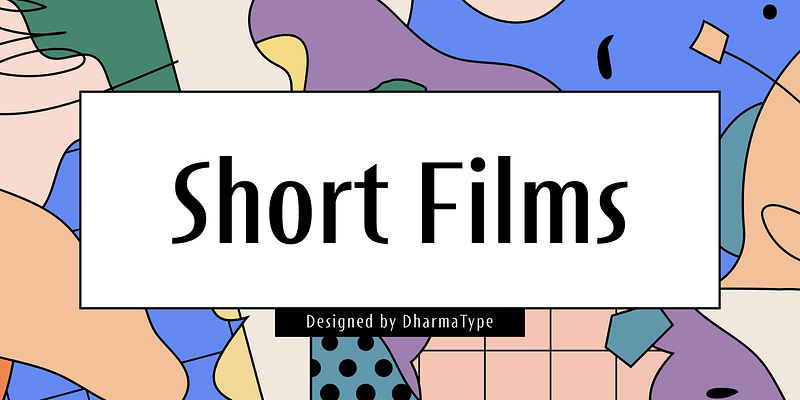
Short Films specimen
Short Films
Short Films is an all-new-styled family, which kind of looks like Art Deco Style. Wide opened counters and softly rounded bowls create a new feeling – Retro but futuristic, geometric but humanistic.